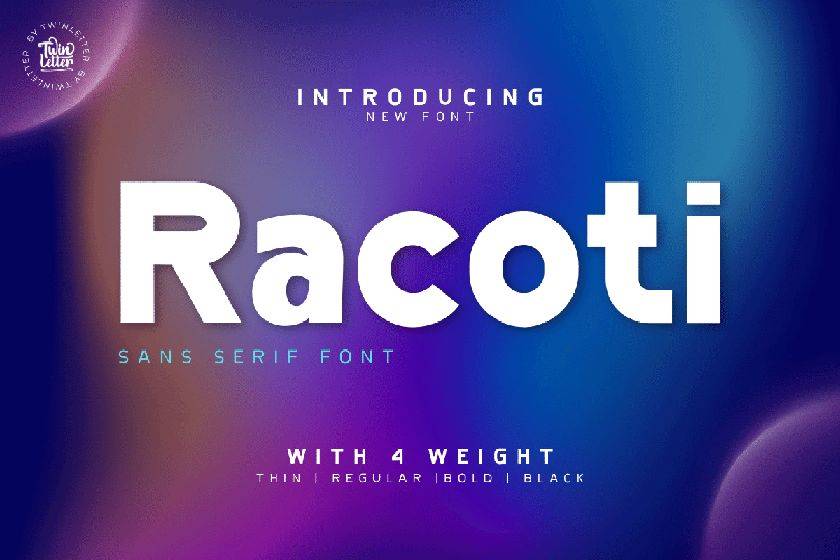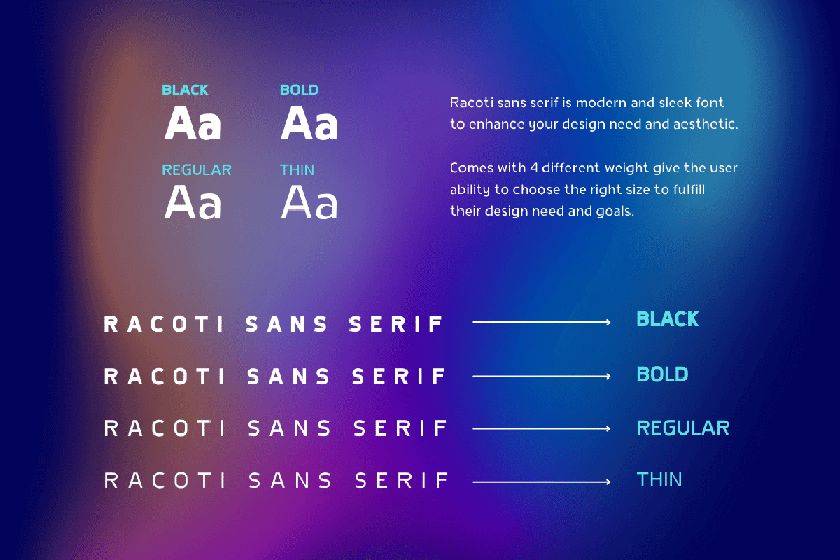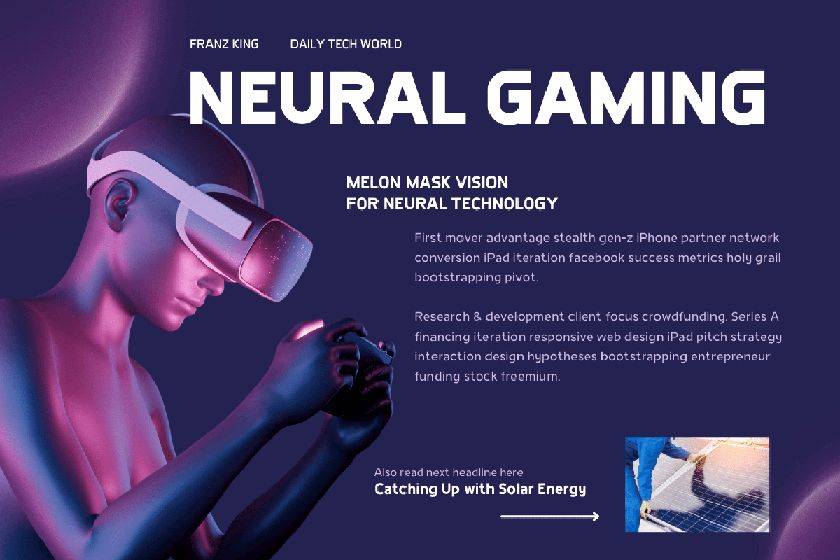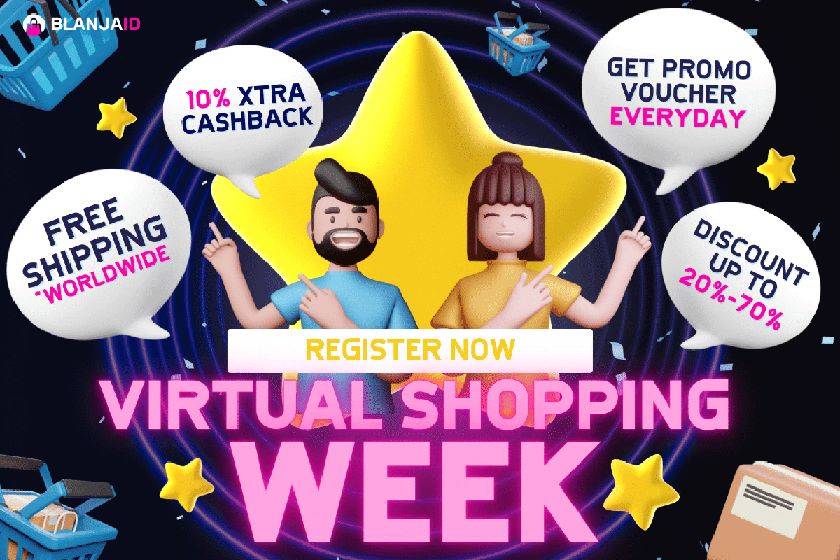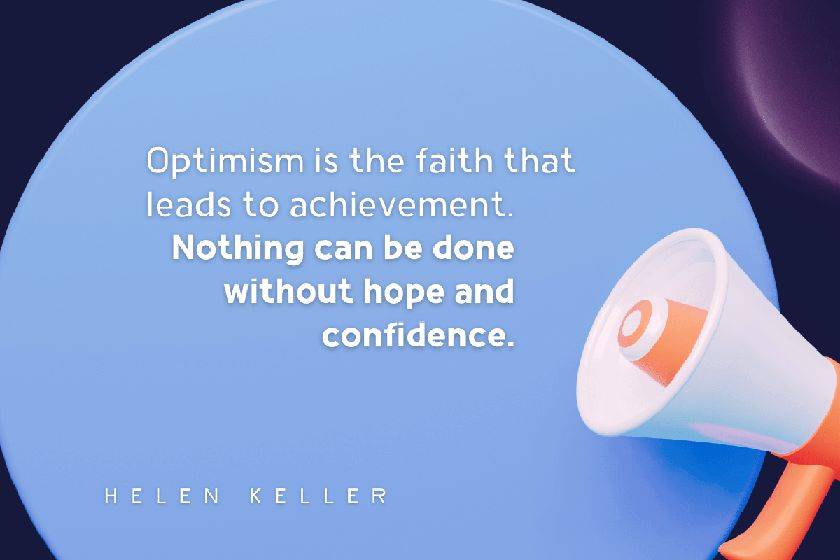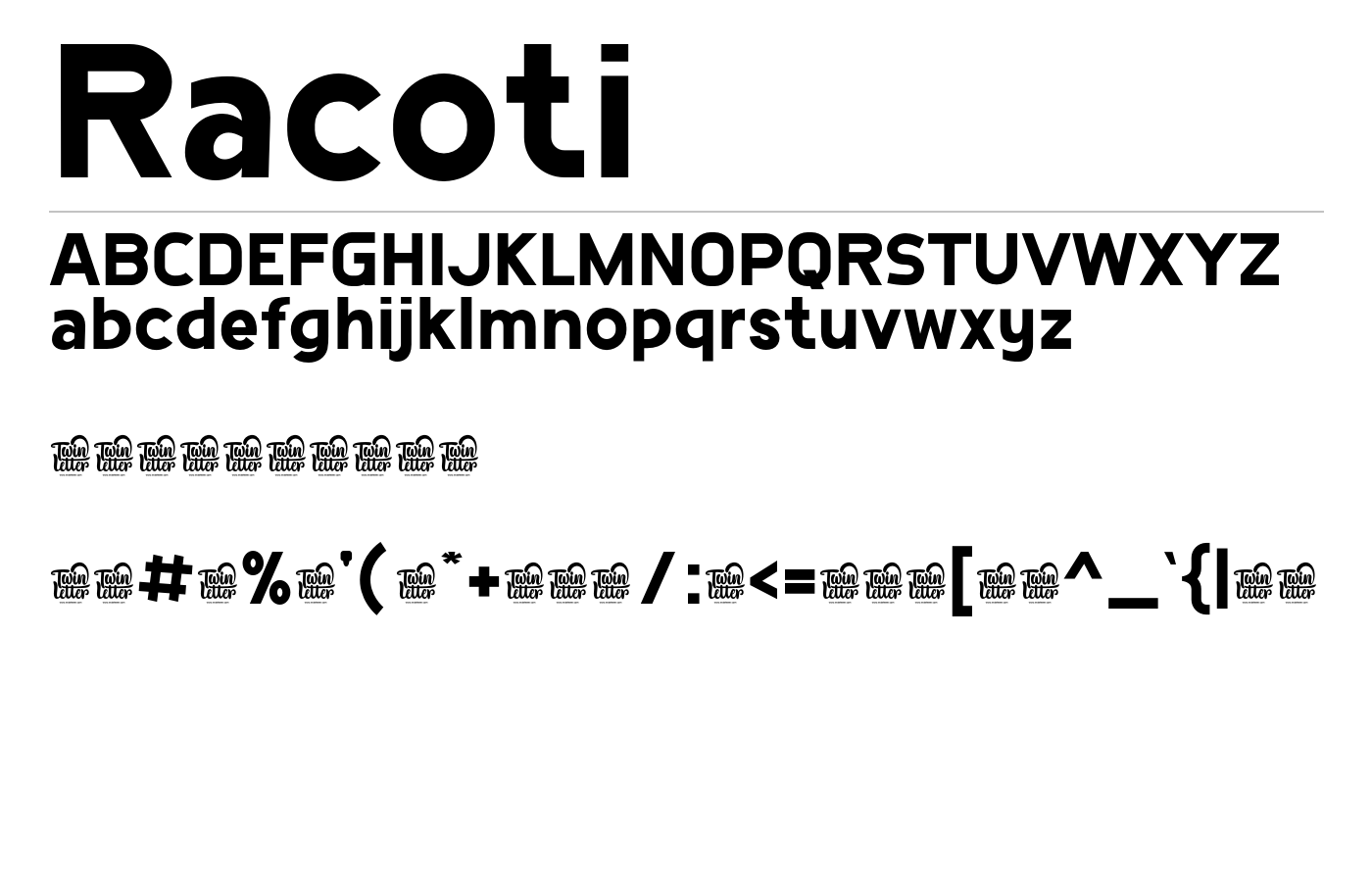
Racoti is a bold, geometric sans-serif font with clean, modern lines and a strong presence. Its high x-height and evenly weighted strokes provide excellent readability, making it perfect for headlines, logos, and branding that require a confident and contemporary feel. This font works well for projects in tech, sports, and creative industries where clarity and impact are key.
Racoti Font
About Racoti Font